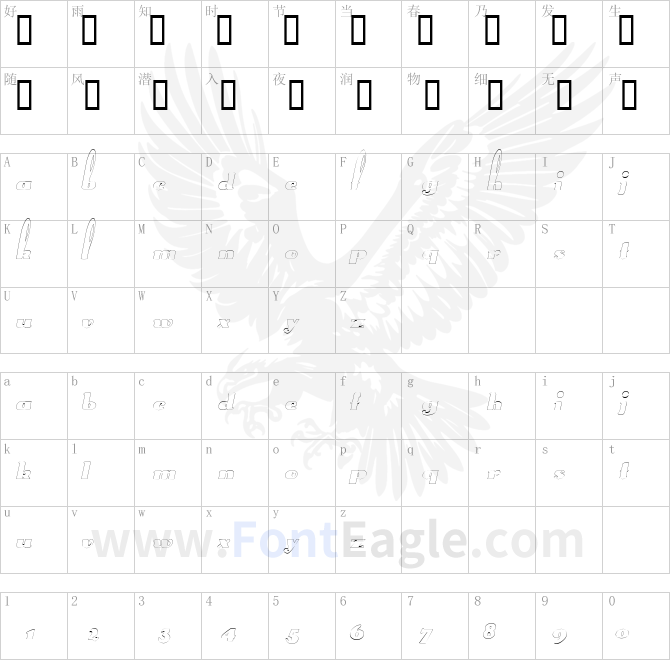
SplittingHaresOutline-Oblique-1- is a great font, widely used in graphic design, single-page menu design, poster design and other fields, and is deeply loved by designers.SplittingHaresOutline-Oblique-1- download.